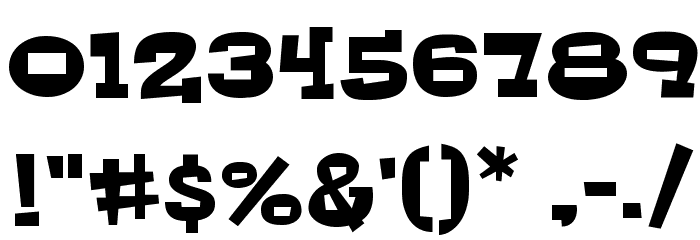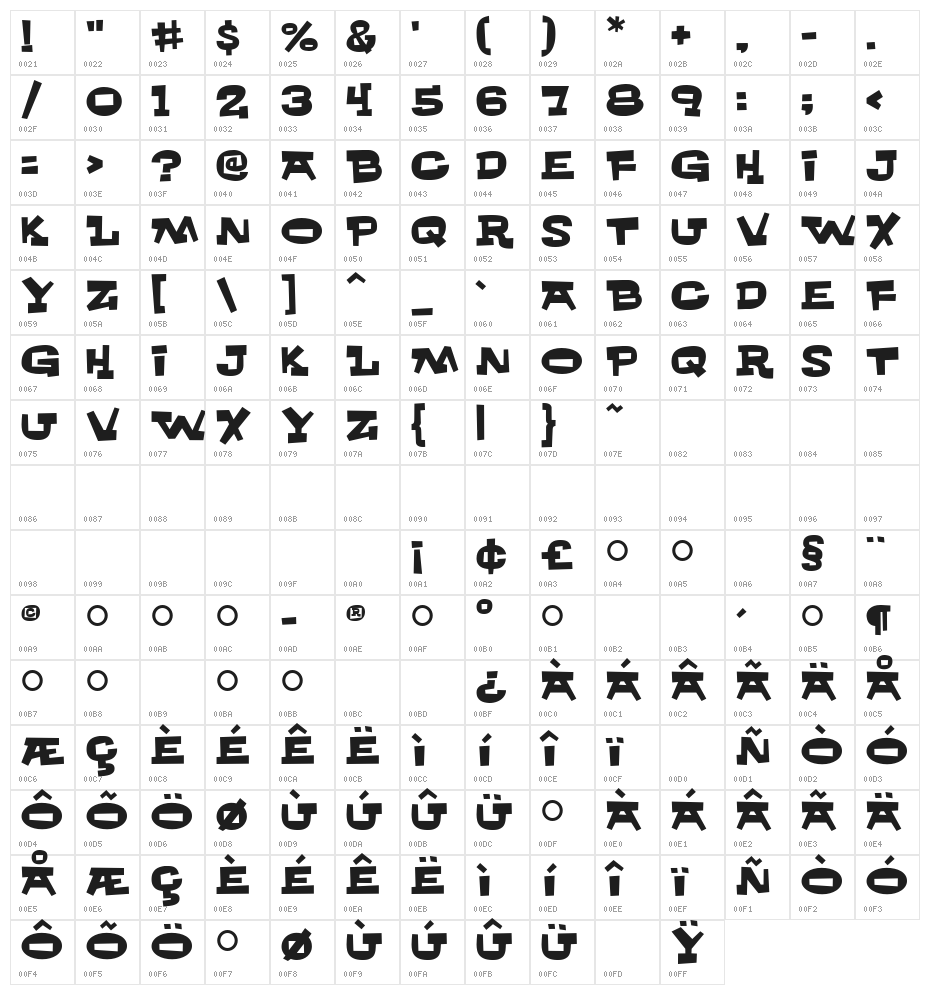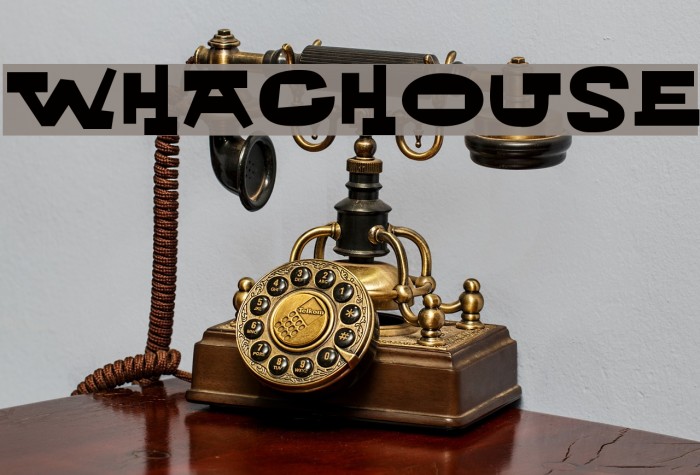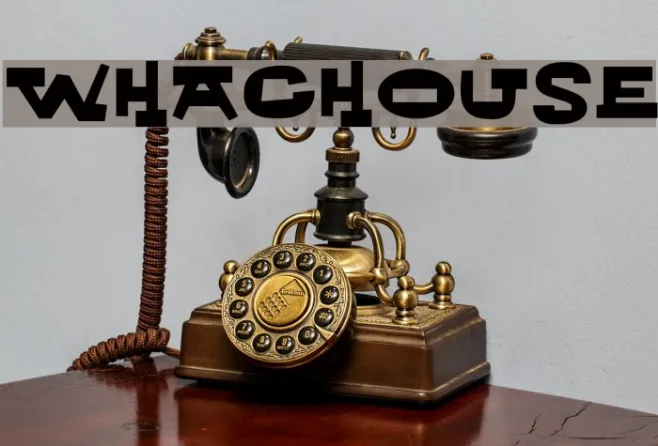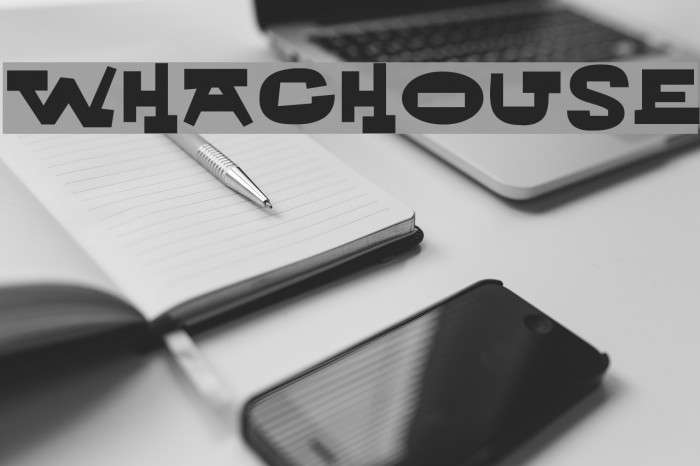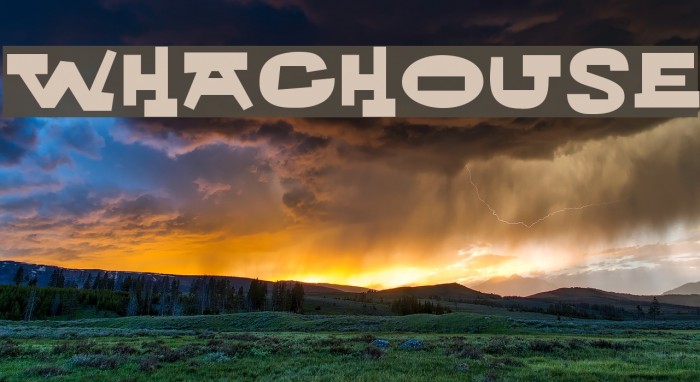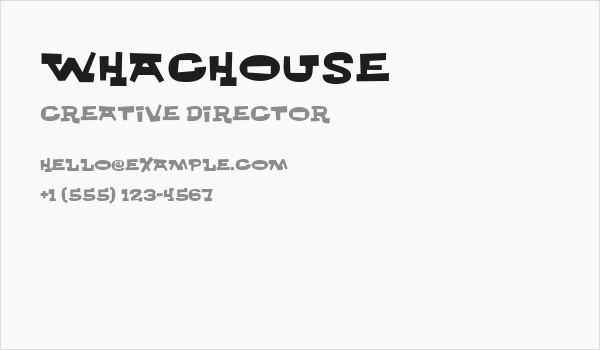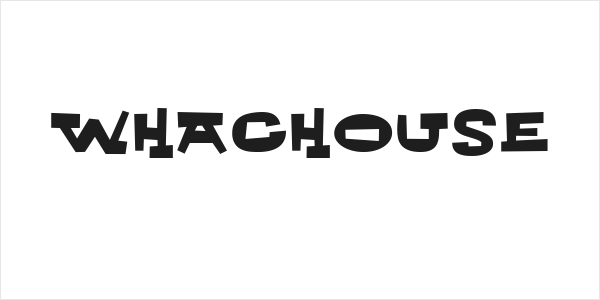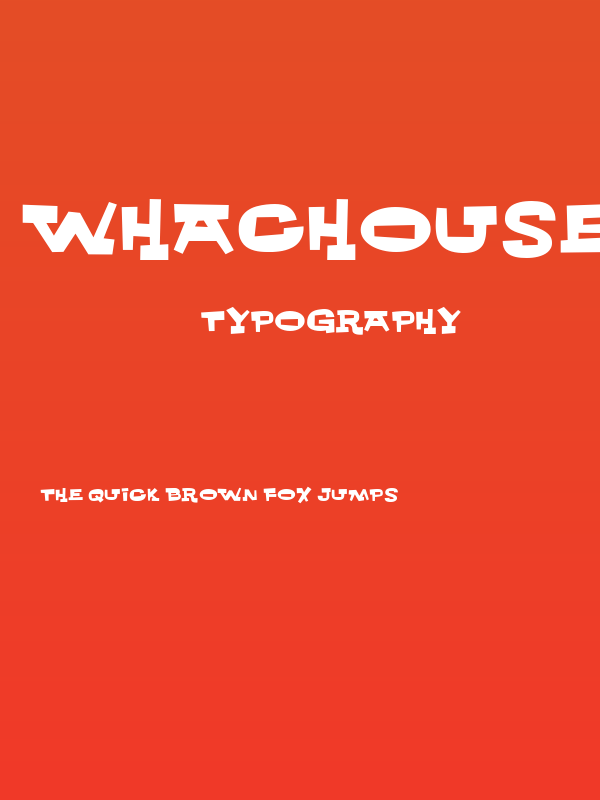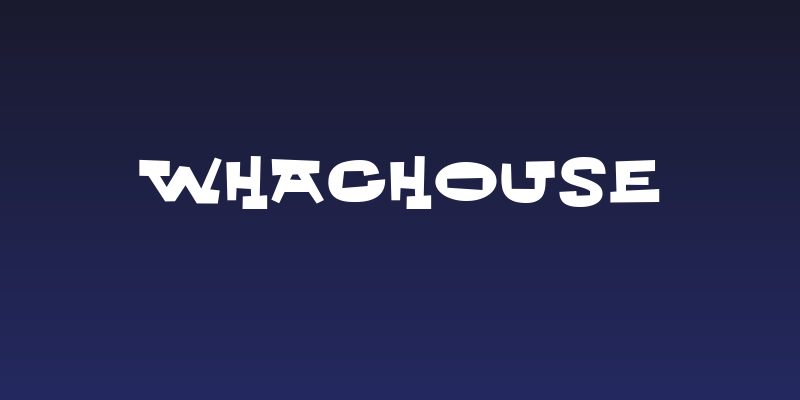
Whachouse Font
Whachouse Description
This font features a bold and dynamic style with a strong presence. The characters are designed with a playful, slightly distorted appearance, giving them a unique and eye-catching look. The uppercase letters are particularly striking, with exaggerated serifs and angular lines that create a sense of movement and energy. The lowercase letters maintain this playful aesthetic, ensuring consistency throughout the typeface. Numbers and special characters are equally bold and maintain the same stylistic elements, making this font versatile for various uses. The overall design is reminiscent of retro or vintage styles, yet it maintains a modern twist that makes it suitable for contemporary projects.
| Overall Style | Retro, Modern |
| Proposed Projects | Ideal for posters, logos, branding, and any project requiring a bold, attention-grabbing typeface. |